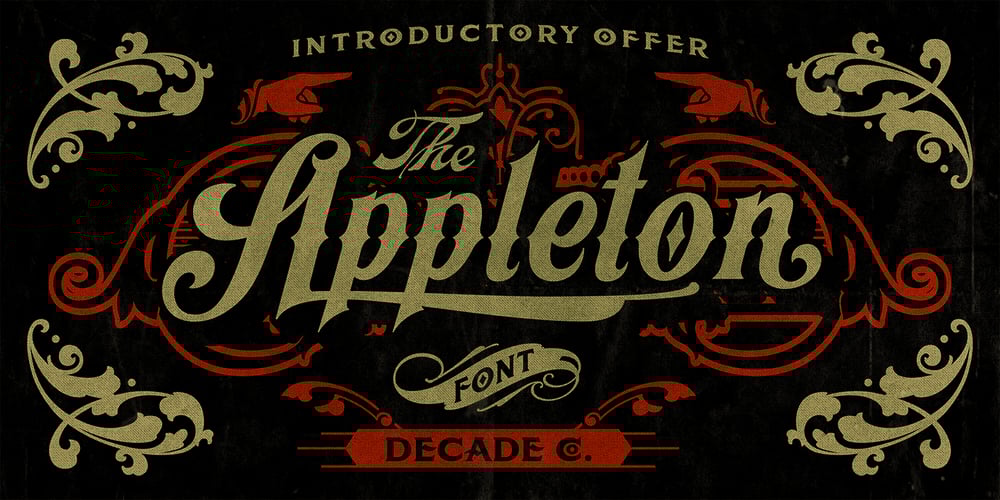
Appleton Font Family was designed by published by Decade Typefoundry. Appleton contains 1 styles and family package options. Back to 1880-1900 when a number of events were coming together, the country was evolving from a local market economy to mass merchandising, rail systems were being built and color lithography was becoming more affordable. The first rail cars full of oranges were being shipped from Southern California to the East – what a treat during a cold winter’s day. Labels were pasted on every fruit crate and these labels had large images of oranges and orange groves. With technological advances in soldered cans, canneries popped up all over the country. In order to market their products many California Canneries pooled their resources to form the California Fruit Canners Assn. in 1899. This font was inspired from that era. Loaded with alternates, swashes, stylistic and multilingual support.